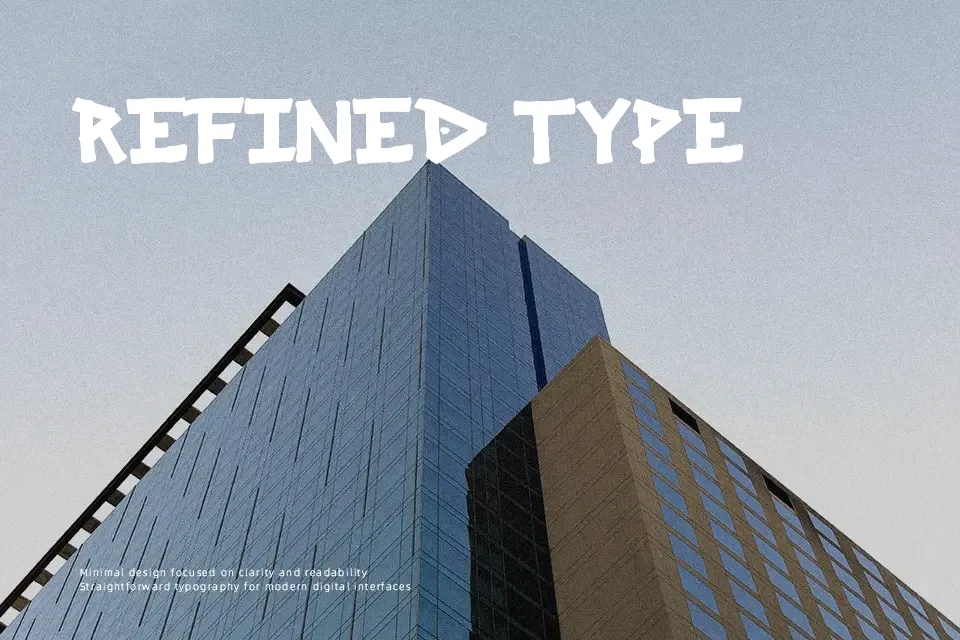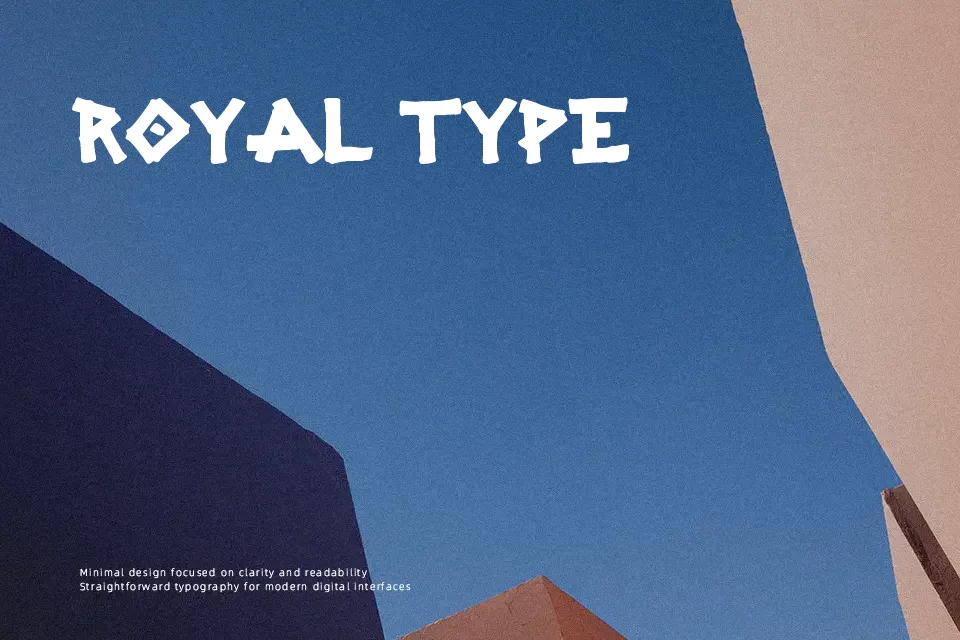
SRG Marker Font
SRG Marker Font features bold, marker-styled strokes and relaxed character geometry that give every glyph a handmade appearance. The letterforms display moderate weight variation with rounded terminals, establishing an energetic rhythm across headlines. Character spacing is relatively compact, which keeps short phrases visually unified without creating awkward gaps between uppercase pairs. Proportions remain consistent across standard characters, allowing the typeface to perform reliably in event banners, casual packaging, and merchandise graphics. However, the heavy stroke density reduces reading comfort in dense paragraphs or small digital interface labels, making the design best suited for headline-scale applications.
music festival posters,streetwear apparel graphics,casual product packaging,event banners
continuous body text,dense corporate reports,small interface labels,technical documentation
Perfect for advertising, branding, and headline, with a bold and brush style.